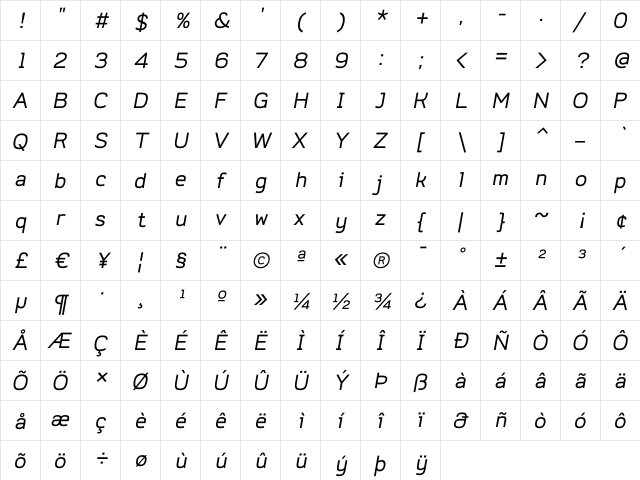
Do Gothic Oblique
| Foundry | Anuthin Wongsunkakon |
| Designer | Anuthin Wongsunkakon |
Design Context for Do Gothic Typeface
Do Gothic has the quiet confidence of well-executed sans-serif typography: versatile, unobtrusive, and dependable at any size. The dynamic lean of this cut emphasises speed and emphasis in any layout.
Font Pairing: Works well alongside a characterful serif or display font that can carry the expressive load while Do Gothic handles the functional copy.
Pro Tip: Pair Do Gothic with a display or serif font for headlines — its neutral character makes it an excellent supporting player in complex typographic systems.